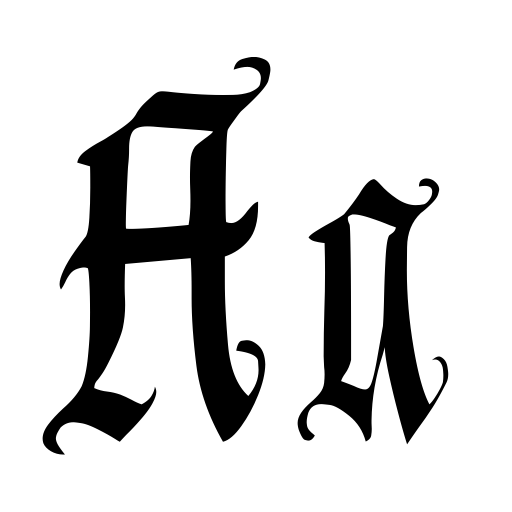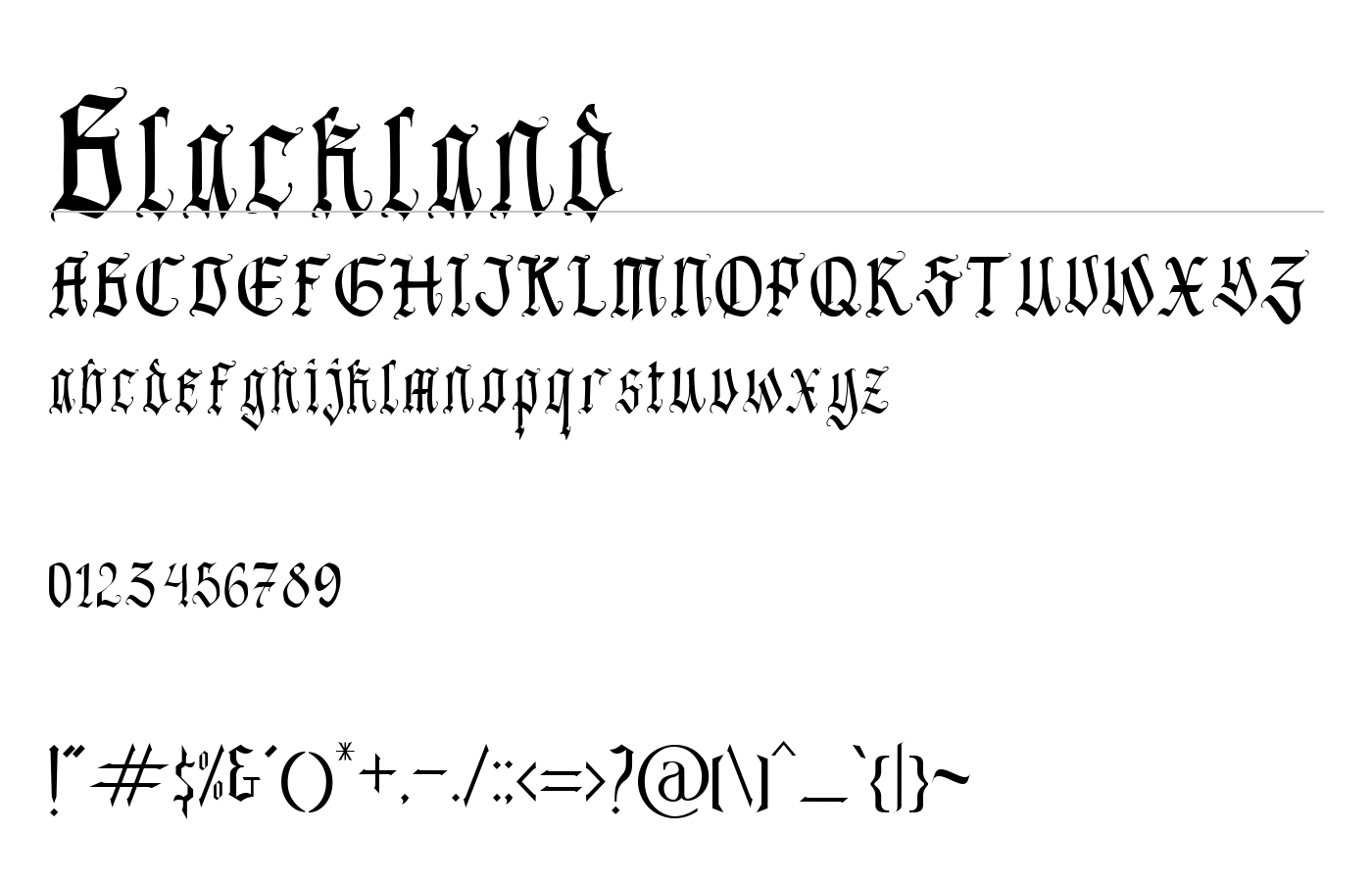
Blackland is a bold blackletter-style font with sharp, angular strokes and high contrast that evoke a gothic medieval vibe. Its condensed letterforms and intricate details make it ideal for dramatic headlines, logos, or branding that seeks an edgy, vintage-inspired aesthetic. This font works best in display contexts where its unique character can stand out and create a strong visual impact.
Blackland Font
About Blackland Font